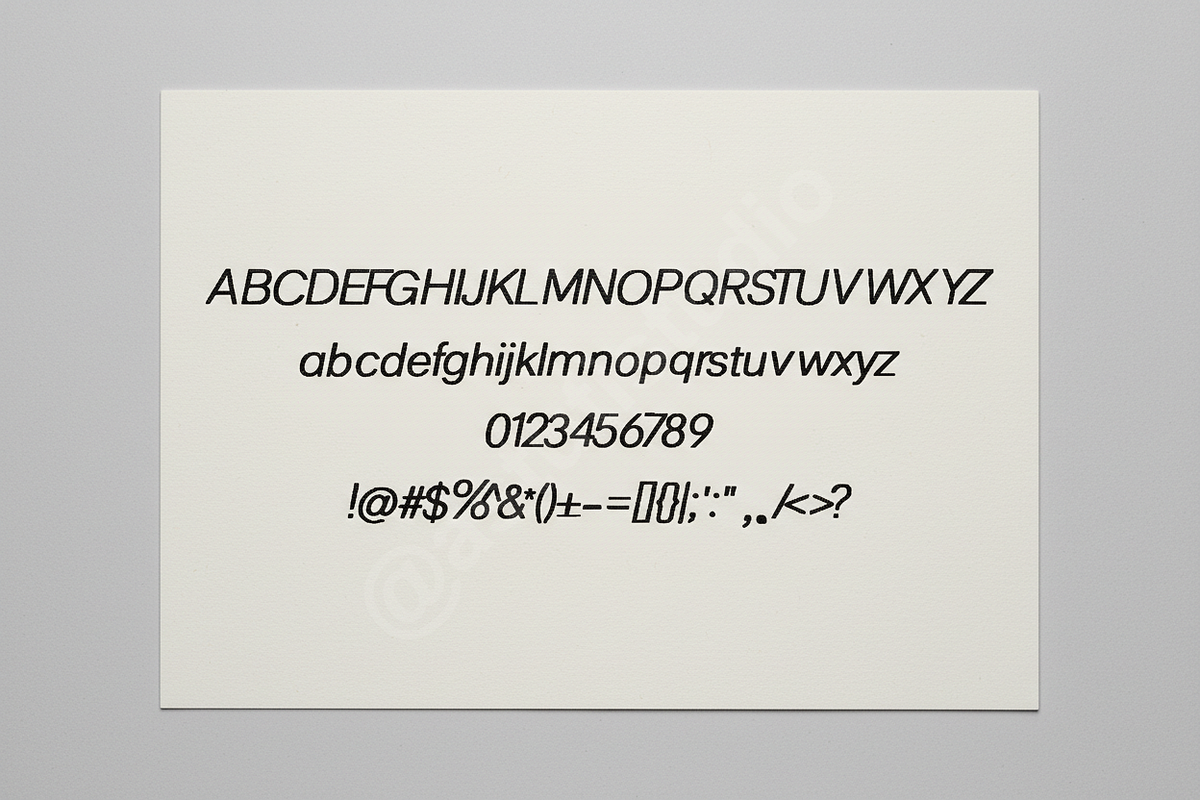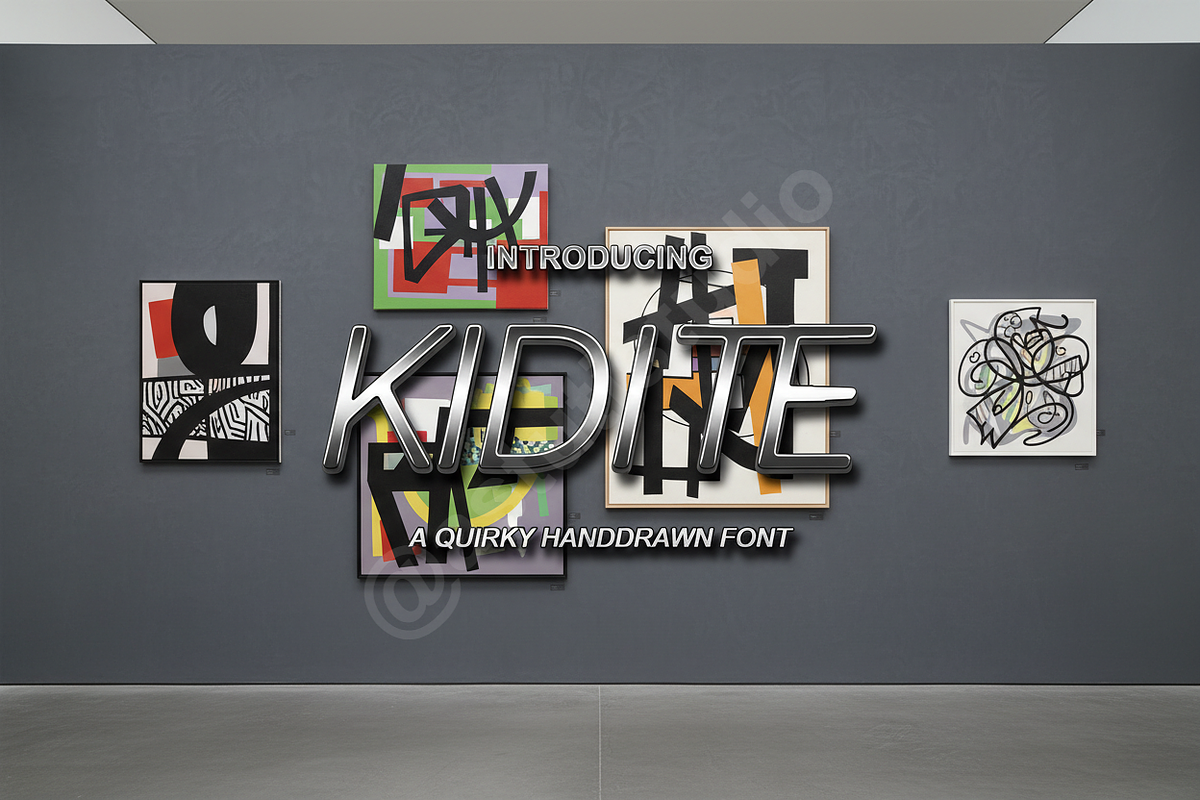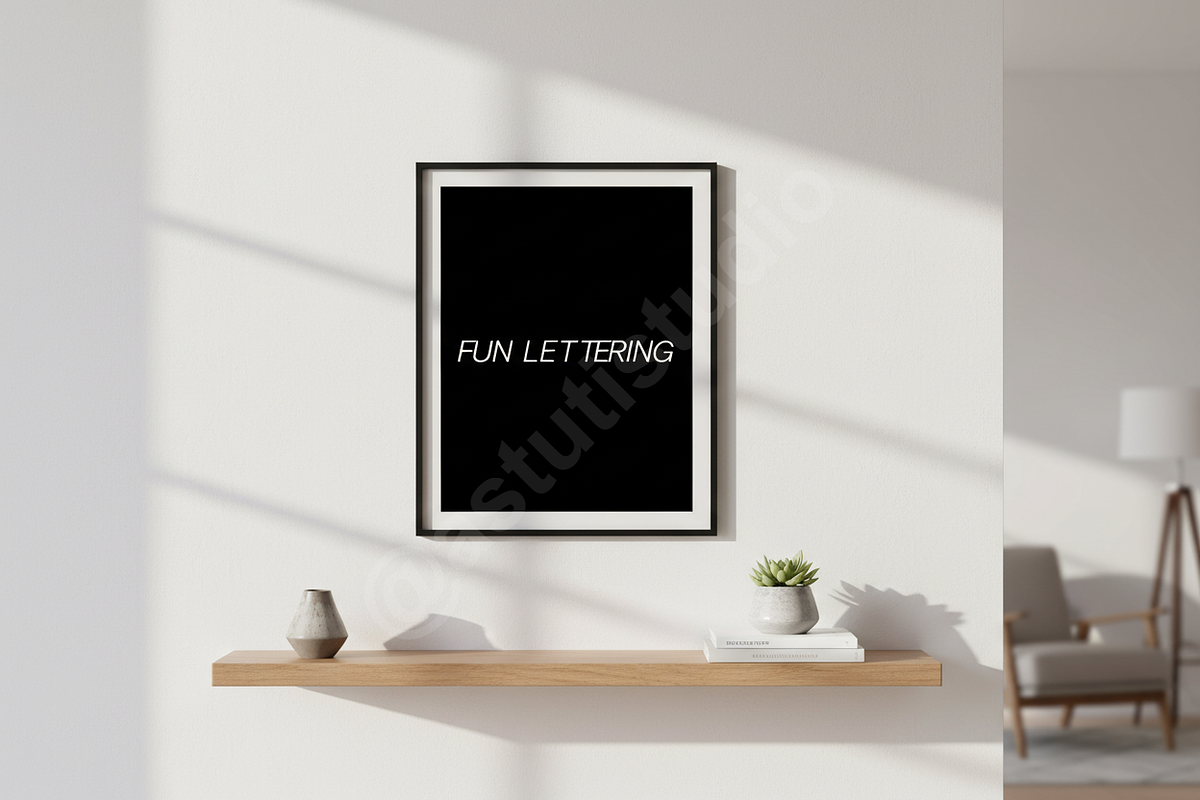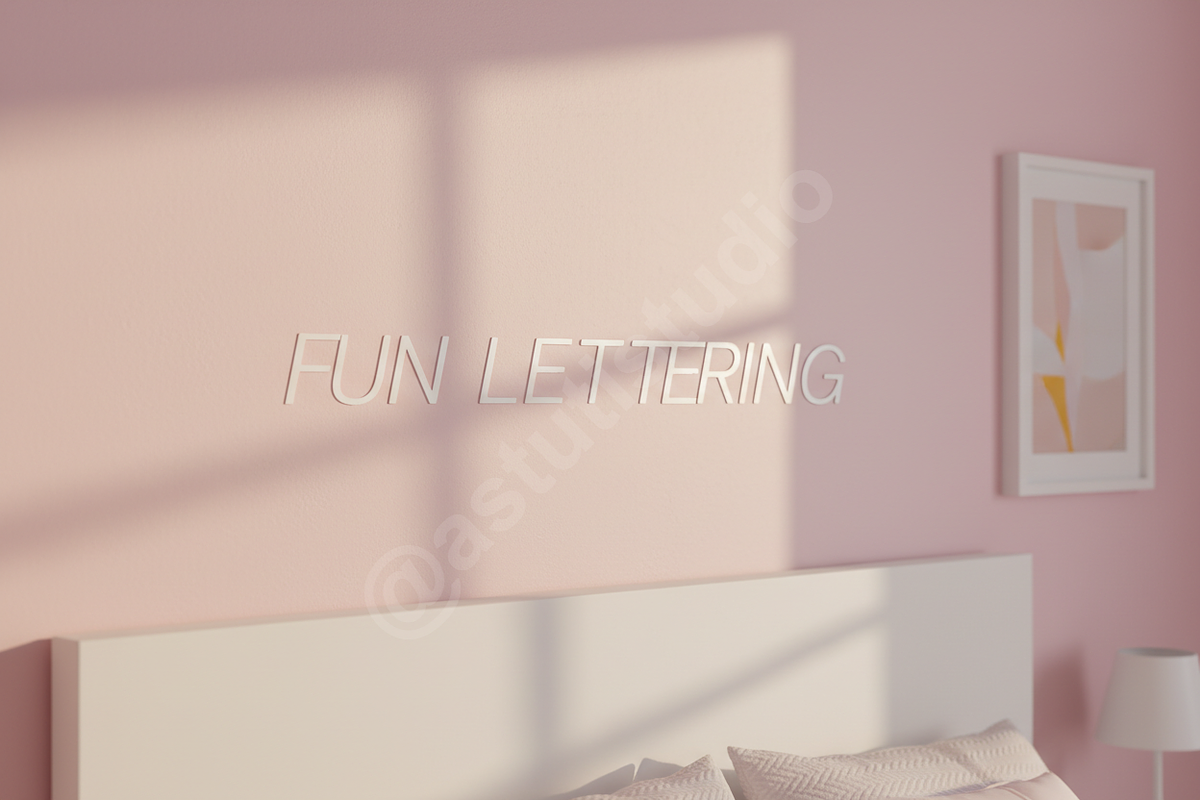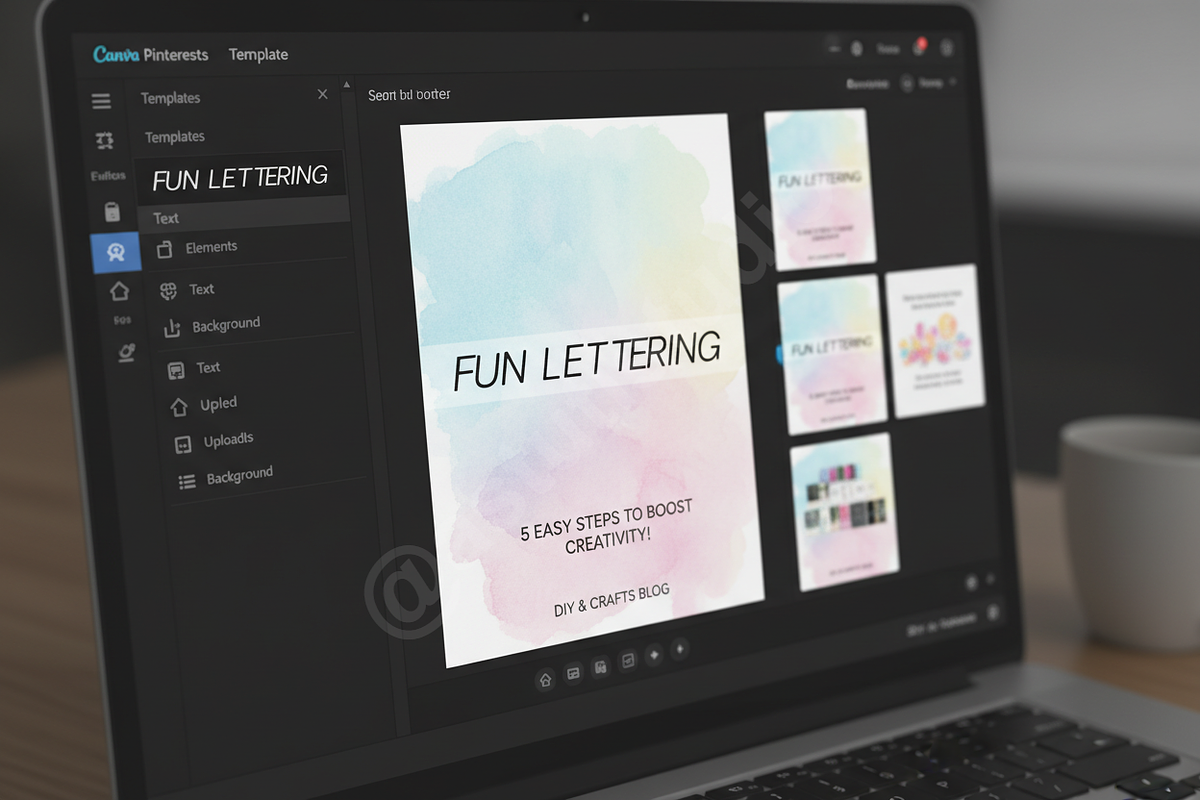
Kidite - Sophisticated Modern Serif
Product Overview Introducing Kidite, a premium serif typeface meticulously crafted for the discerning designer. Kidite strikes a perfect balance between timeless elegance and contemporary flair, making it an essential tool for high-end luxury branding, sophisticated editorial layouts, and high-impact social media content. Whether you are designing a high-fashion magazine cover or a boutique brand identity, Kidite provides a polished, professional aesthetic that commands attention.
- Sophisticated, high-contrast letterforms for a luxury feel
- Extensive ligature set for custom-looking typography
- Full multilingual support for global reach
- Optimized for both high-resolution print and digital screens
- Clean, minimalist aesthetic suitable for modern design trends